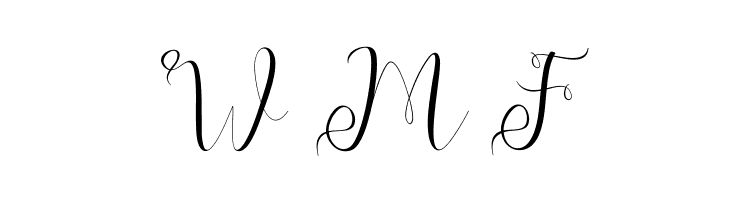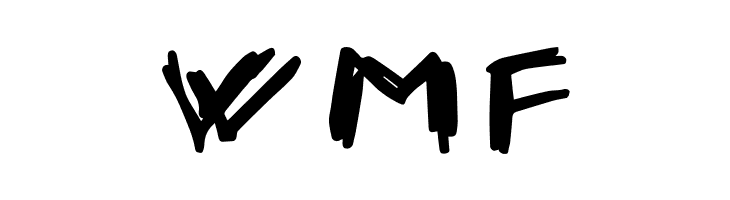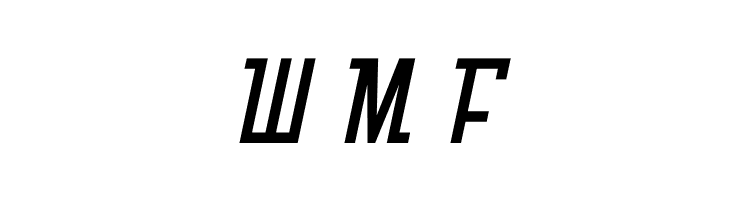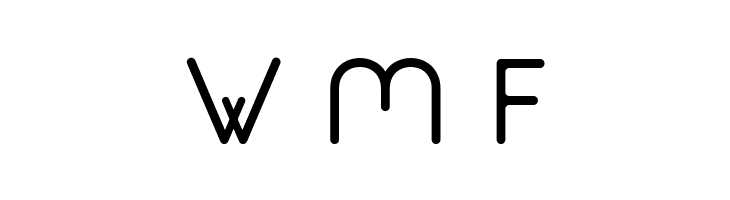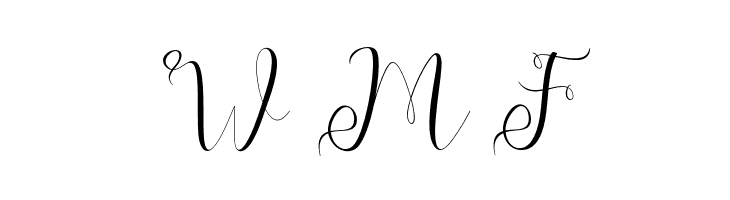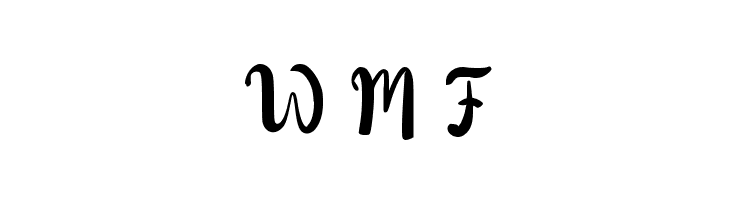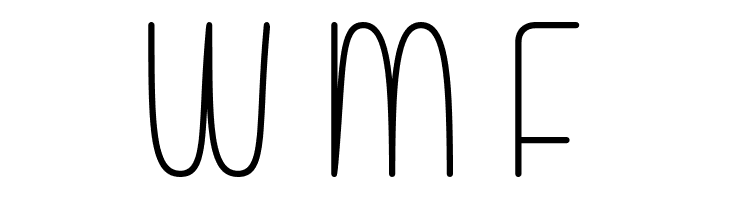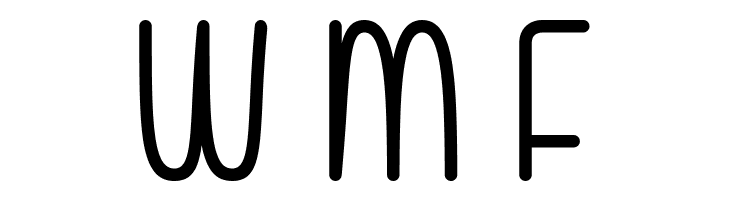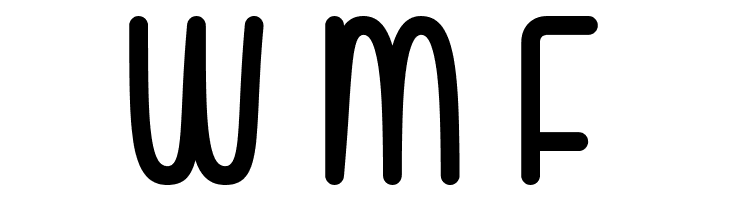
A clean, modern sans-serif font with uniform stroke width and excellent legibility.
A modern, italic sans-serif font with a dynamic and versatile style.
A modern sans-serif font with an italic slant, offering elegance and readability.
A modern, italic sans-serif font with clean lines and a dynamic slant.
A bold, clean typeface with thick strokes and uniform design.
A bold, italicized font with strong, dynamic strokes and a modern feel.
A modern, italicized sans-serif font with bold weight and excellent readability.
A bold, modern sans-serif font with thick, uniform strokes and clean lines.
A bold, italic sans-serif font with a modern and dynamic style.
A sleek, modern sans-serif font with a light, italic style.
An elegant, cursive font with flowing, ornate letters and graceful flourishes.
A bold, flowing script font with elegant curves and a modern calligraphic style.
A playful, gooey-textured font with a whimsical, cartoonish style.
An elegant and flowing script font with graceful curves and sophisticated flair.
A bold, decorative serif font with high contrast and vintage-modern appeal.
A modern, geometric font with clean lines and consistent stroke width.
A bold, dynamic handwritten font with expressive strokes.
A modern, angular font with a geometric and dynamic style.
A dynamic and playful script font with a handwritten style.
A modern, rounded font with smooth curves and a minimalist aesthetic.
An elegant script font with flowing lines and decorative swirls.
A playful, bold script font with a handwritten style.
A playful, handwritten font with smooth, rounded edges and a casual style.
A bold, playful font with rounded, bubbly characters and a whimsical style.
A graceful, handwritten script font with elegant, flowing characters.
A light, rounded geometric sans-serif with tall, narrow proportions.
A thin, geometric sans-serif font with tall, narrow shapes.
A thin, rounded, and modern sans-serif font with tall, narrow letters.
Tall, rounded sans-serif with playful, informal style.
Playful, rounded, bold sans-serif with smooth curves.
Extra bold, rounded sans-serif with a playful and informal style.
Rounded, semi-bold sans-serif with playful, informal style.
Rounded geometric sans-serif with a playful, modern look.
Casual handwritten script with smooth, flowing strokes.